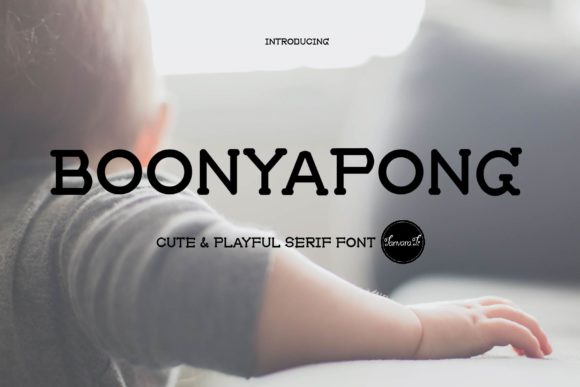
Prepare to be mesmerized by Boonyapong, a serif font of exceptional ingenuity and unmatched allure. Every letterform in this meticulously crafted treasure has been infused with a touch of elegance and a dash of audacity, transforming it into a visual masterpiece that promises to elevate your designs to new heights.
Embrace the infinite possibilities that await with Boonyapong. Its inherent versatility effortlessly adapts to a myriad of creative endeavors, whether you seek to craft captivating logos, design eye-catching posters, or weave enthralling narratives through your typographic creations. Step into a world of boundless imagination and limitless expression, where every word is a brushstroke of artistry and every sentence a symphony of visual delight.
Adorn your designs with the exquisite curves and sharp edges of Boonyapong, a font that commands attention and leaves a lasting impression. Witness the seamless harmony of its serif strokes, each one meticulously crafted to enhance readability and evoke a sense of timeless sophistication. With Boonyapong as your trusted companion, your designs will exude an aura of elegance that will captivate and enchant your audience.
Experience the sheer joy of working with Boonyapong, a font that transforms the mundane task of typing into an artistic endeavor. Its carefully balanced proportions and generous x-height ensure effortless readability, while its distinct personality adds a touch of uniqueness to every project. Let your imagination soar and embark on a creative journey where every keystroke becomes a stroke of genius.
With Boonyapong as your creative ally, you gain the power to transform ordinary text into evocative narratives and mundane designs into extraordinary works of art. This remarkable font is the perfect choice for those who seek fonts to make every message, whether in a business proposal, a personal letter, or a captivating novel, a reflection of their own inimitable style and personality.